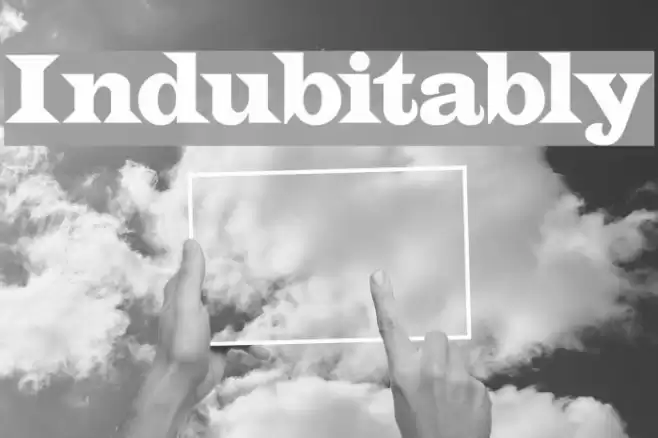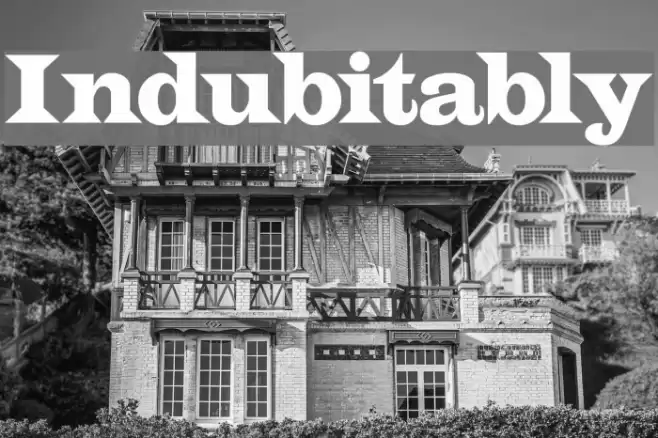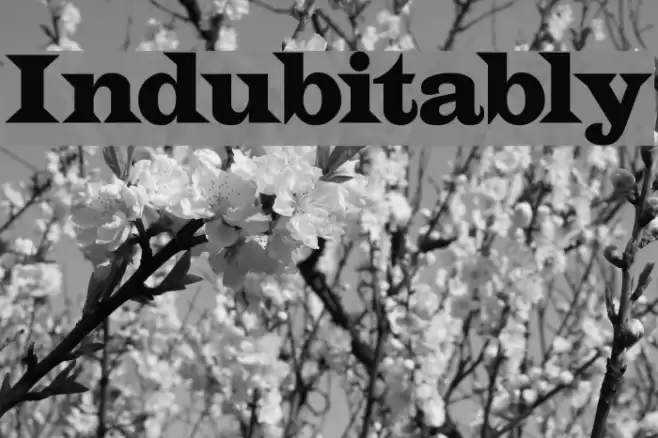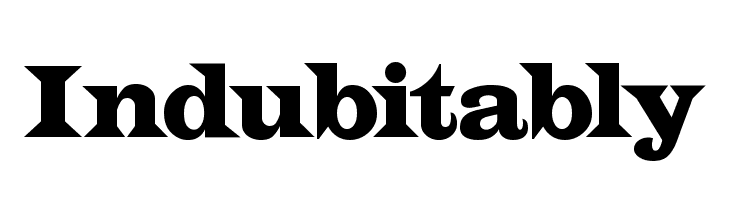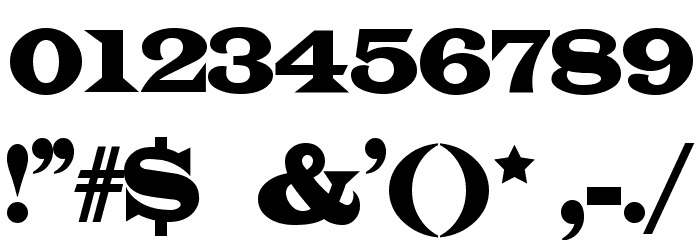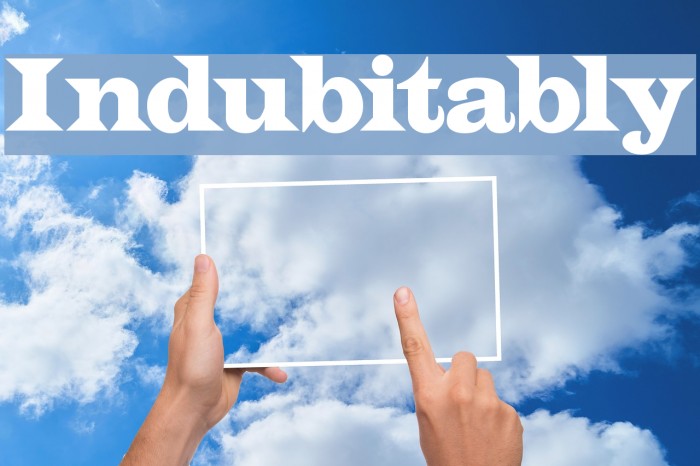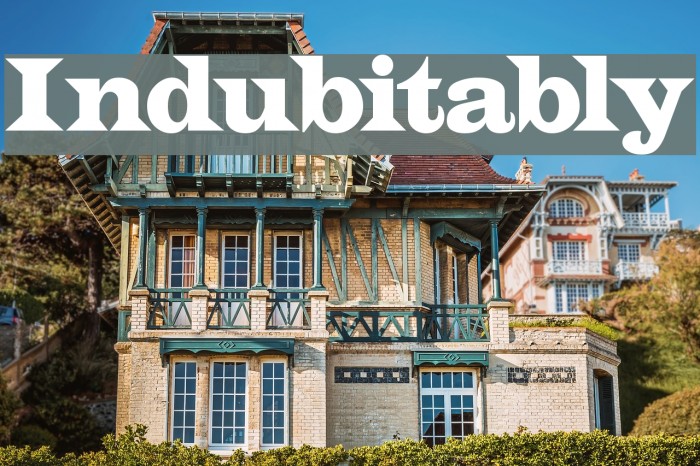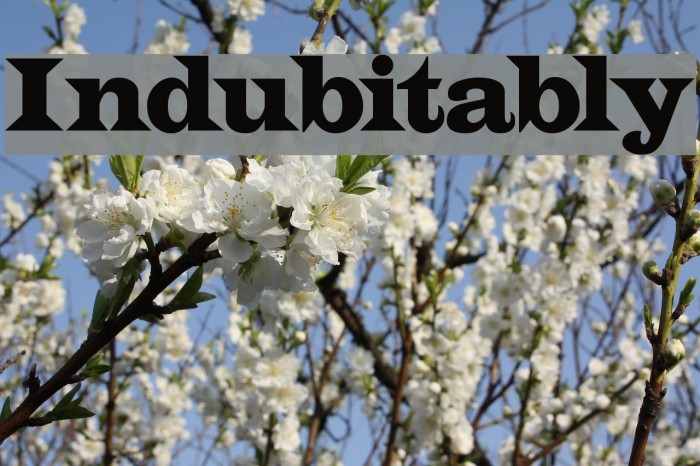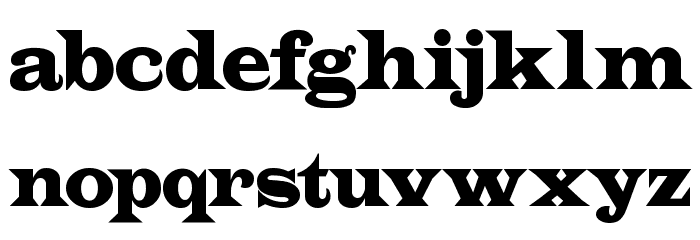
Indubitably Font
Indubitably Description
This font features bold, dramatic serifs with a strong presence. The uppercase letters are characterized by their thick strokes and sharp, angular serifs, giving them a commanding and authoritative appearance. The lowercase letters maintain a consistent weight, offering a harmonious balance with the uppercase. Numbers are equally bold, ensuring readability and impact. Special characters are designed with the same boldness, making them stand out. The overall style is reminiscent of vintage typefaces, yet it carries a modern twist with its clean lines and structured form.
A bold serif font with dramatic, angular serifs and a vintage-modern appeal from Typewriter fonts.
- Proposed Projects: Ideal for branding, headlines, posters, and any project requiring a strong, impactful typeface.
- Overall Style: Vintage, Modern